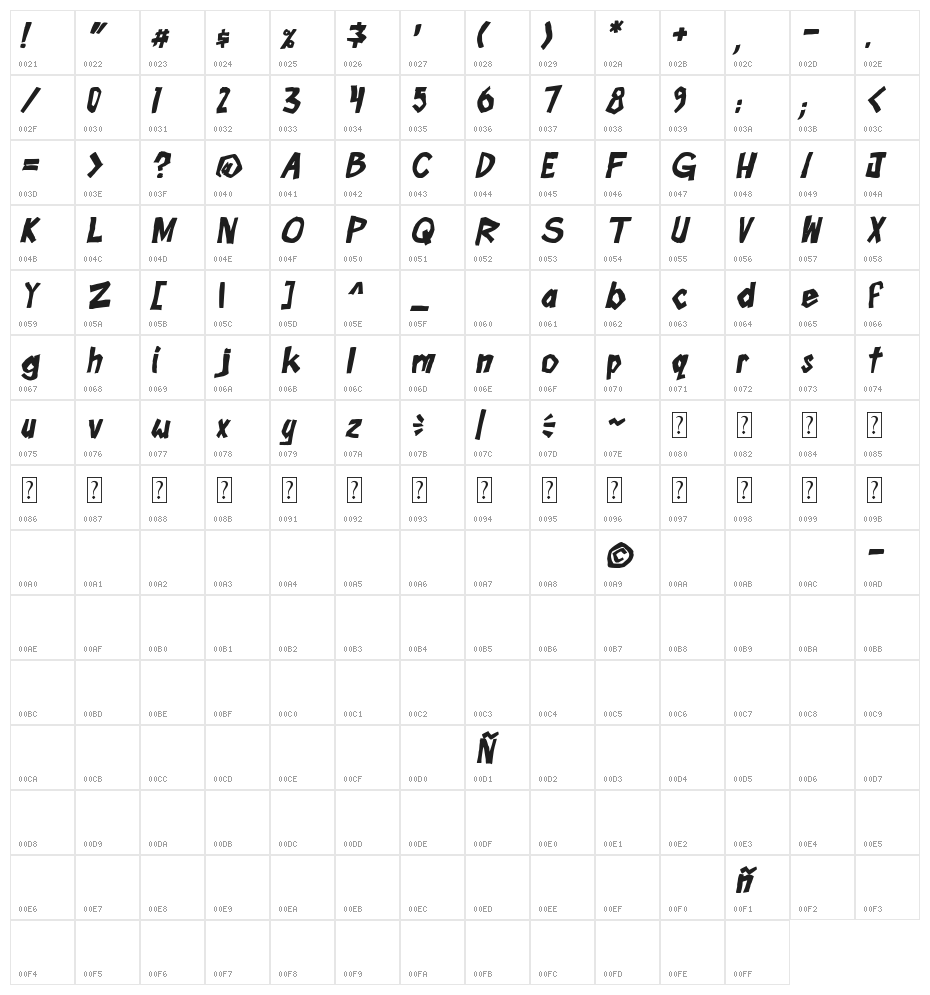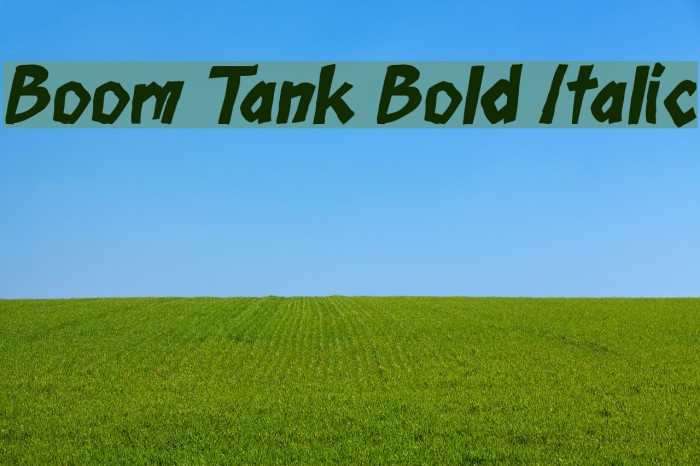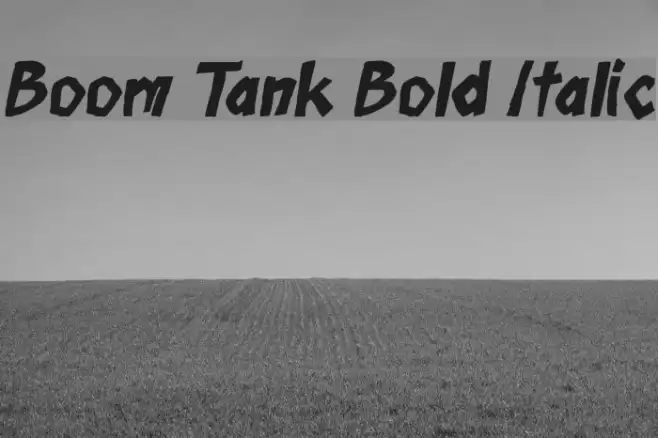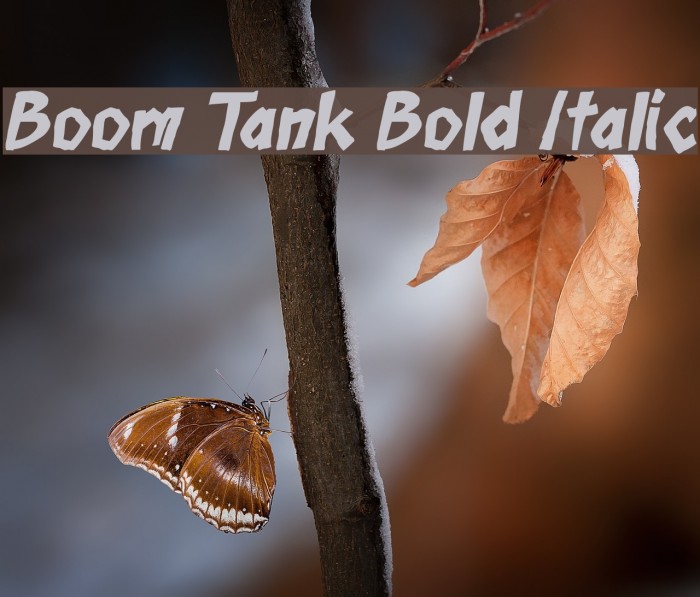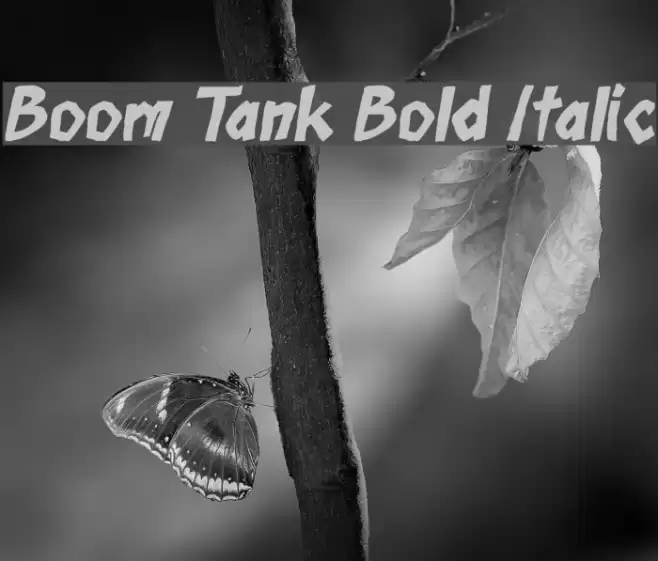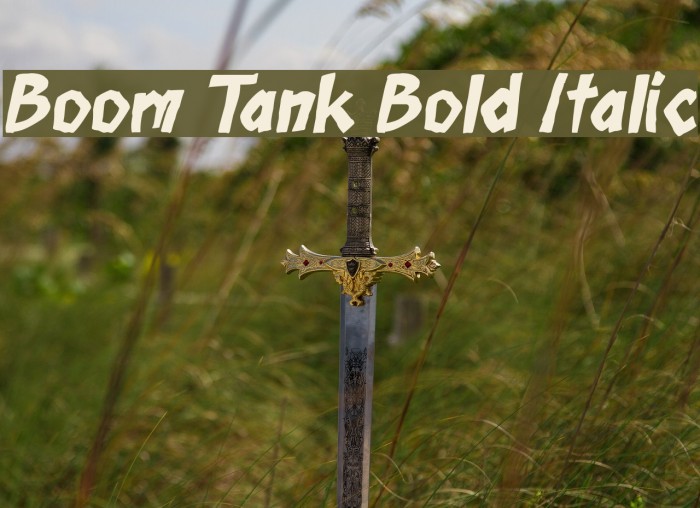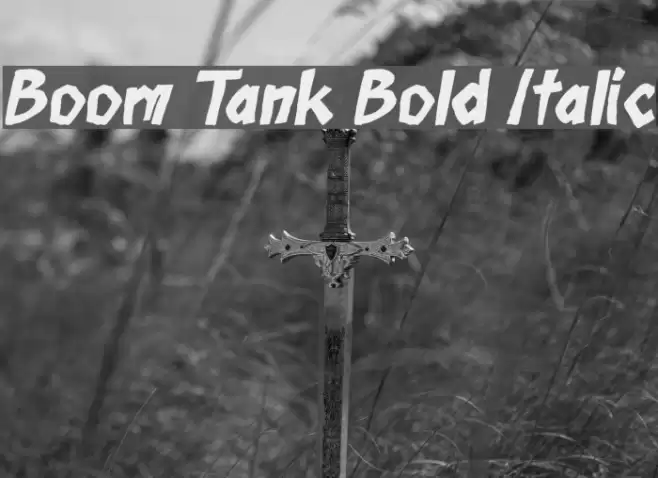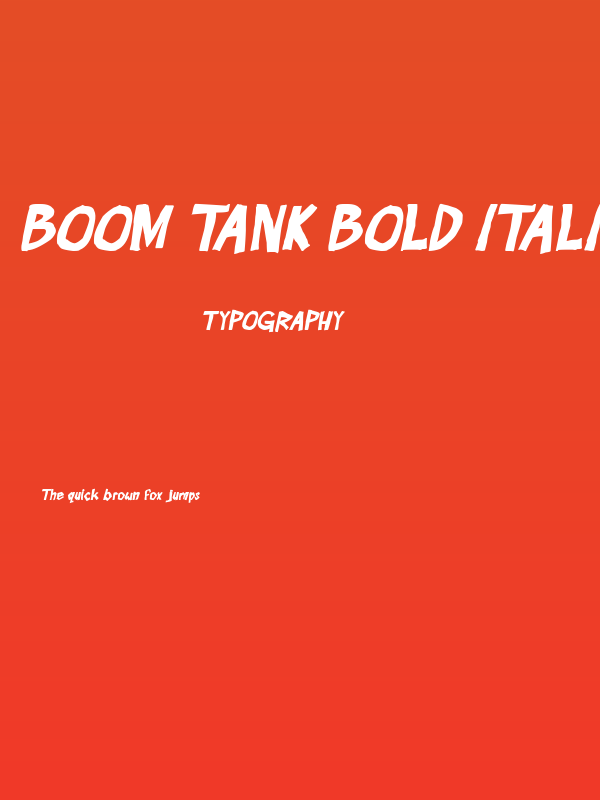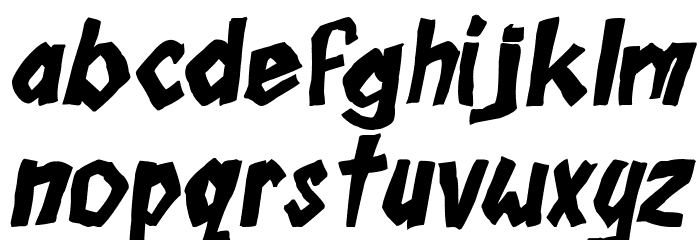
Boom Tank Bold Italic Font
Boom Tank Bold Italic Description
This font features a bold and dynamic style with an italic slant, giving it a sense of movement and energy. The characters are thick and robust, with irregular edges that contribute to a hand-drawn, expressive appearance. The uppercase and lowercase letters maintain a consistent weight, while the numbers and special characters are equally bold and impactful. The overall design is playful and slightly chaotic, making it ideal for projects that require a strong visual statement.
| Proposed Projects | Ideal for posters, comic book titles, video game graphics, and any project needing a bold, energetic typeface. |